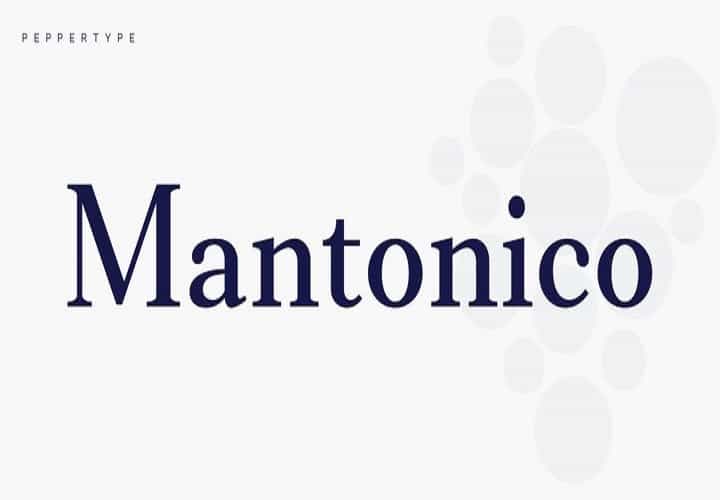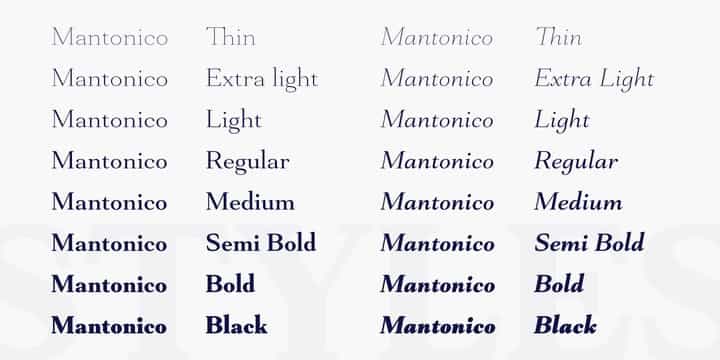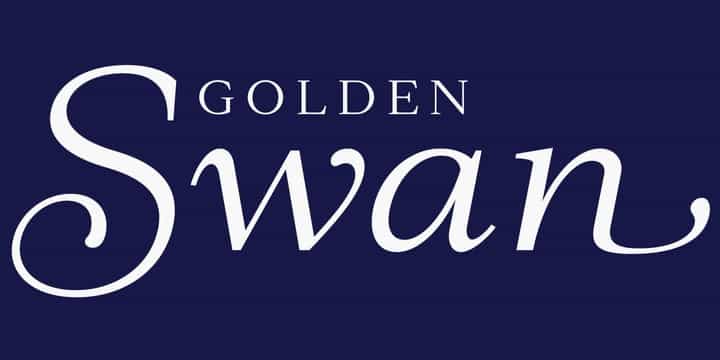
The Mantonico is a serif type family that has the characteristics of being soft and friendly with low x-height. It has a little bit of width and the terminals are quite prominent, which gives you a strange texture that is perfect for long reading. The style range includes 8 weights with corresponding italics. The italics itself is created for a purpose of being soft and almost fluid.